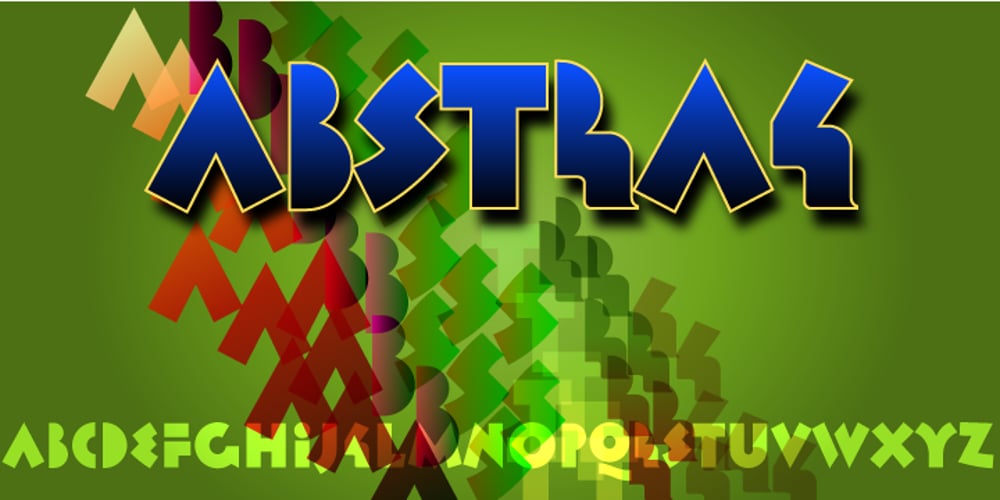
Abstrak BF
Abstrak BF font
Abstrak BF Font Family was designed by Robert Foster, John Bomparte and published by Bomparte’s Fonts. Abstrak BF contains 1 styles and family package options. A delightfully odd assortment of characters: some letters are futuristic in design, while others are derived from classical Greek forms.